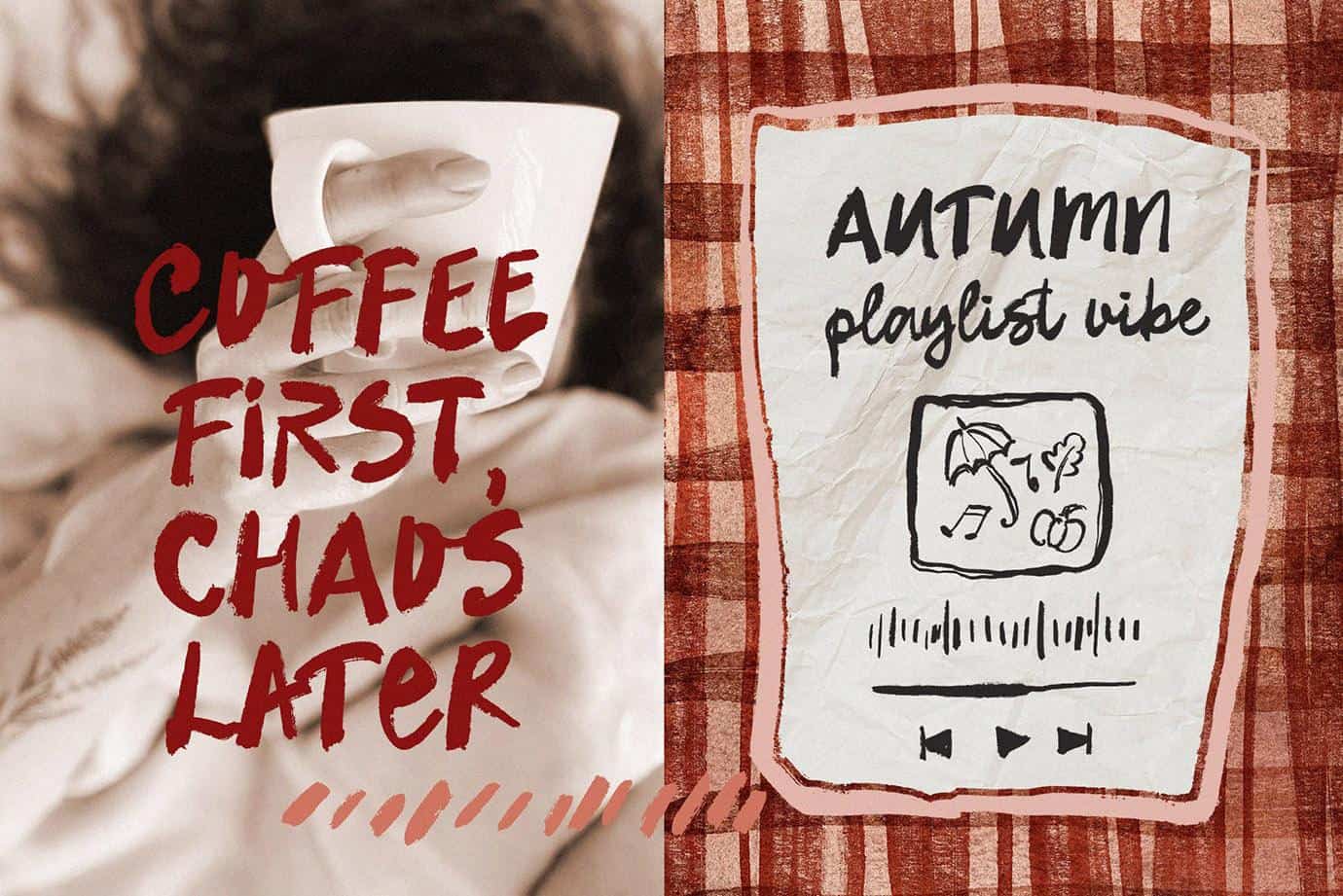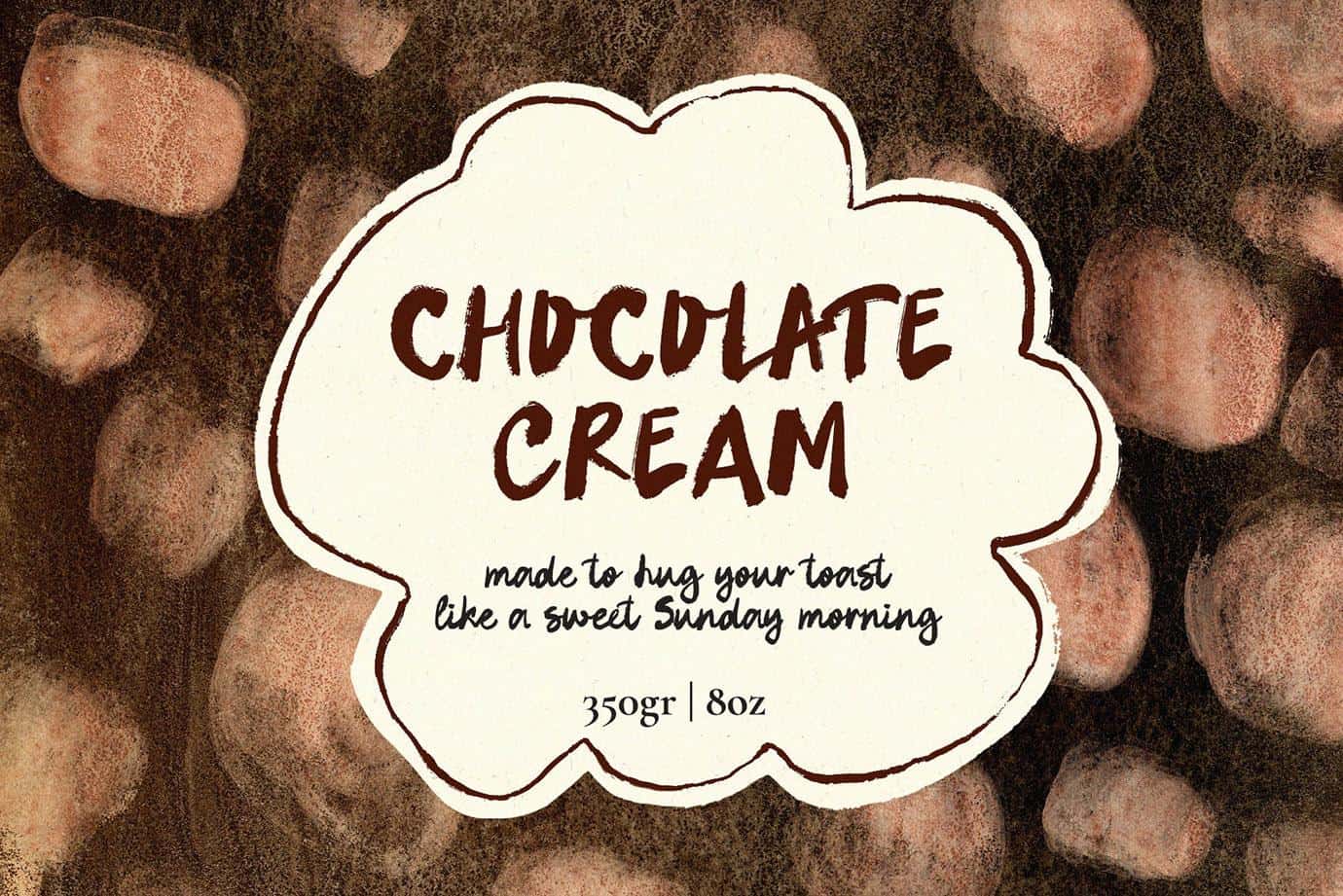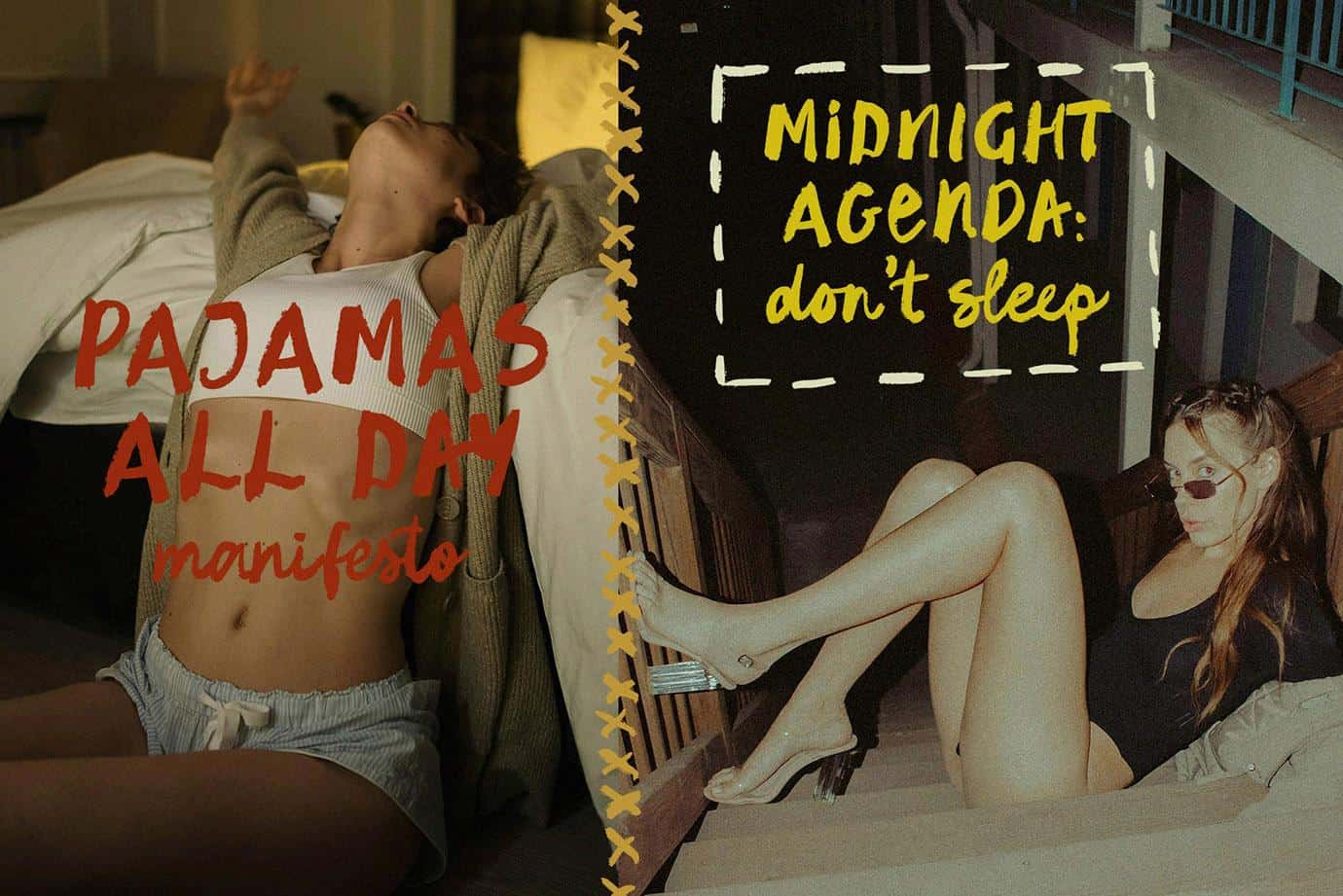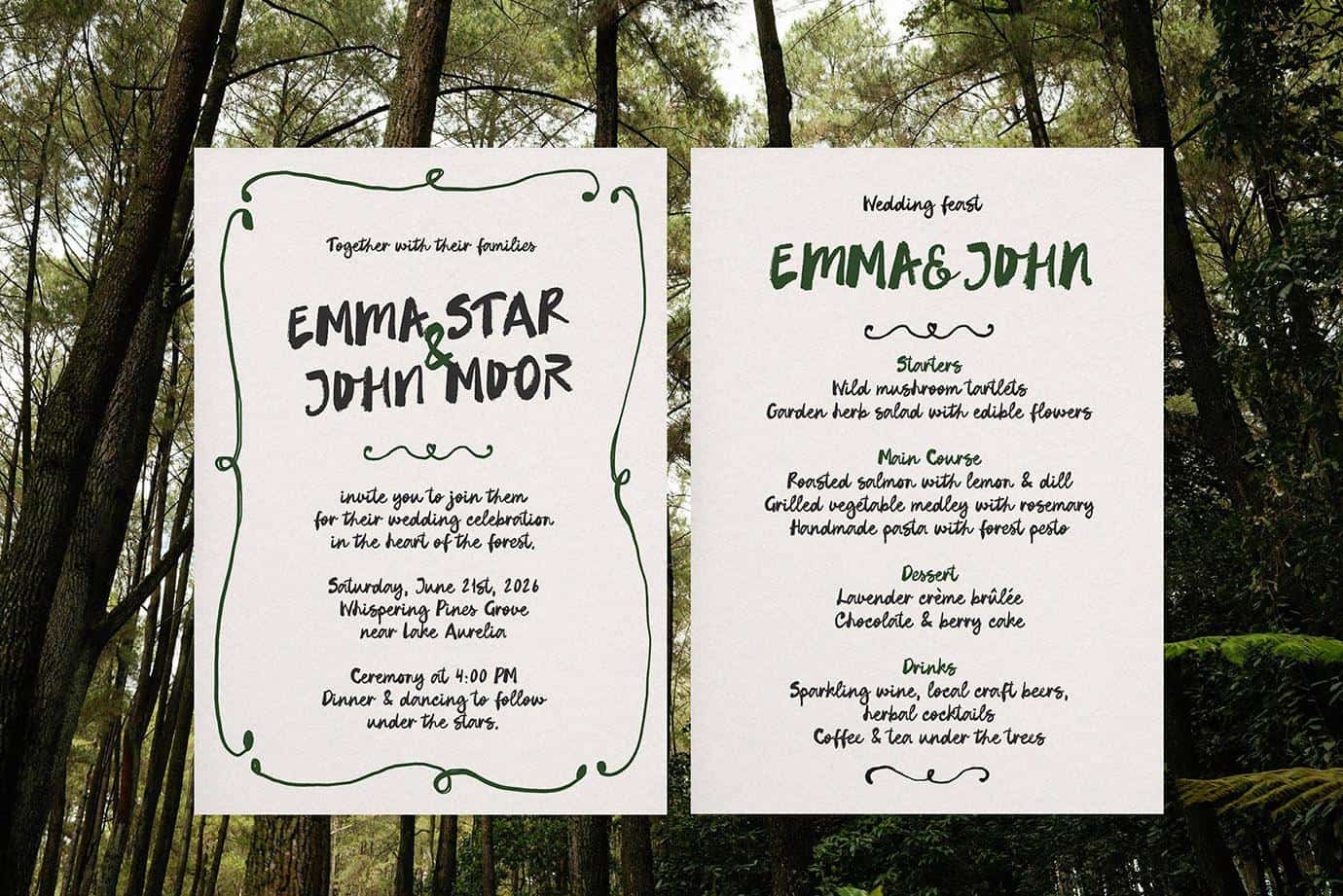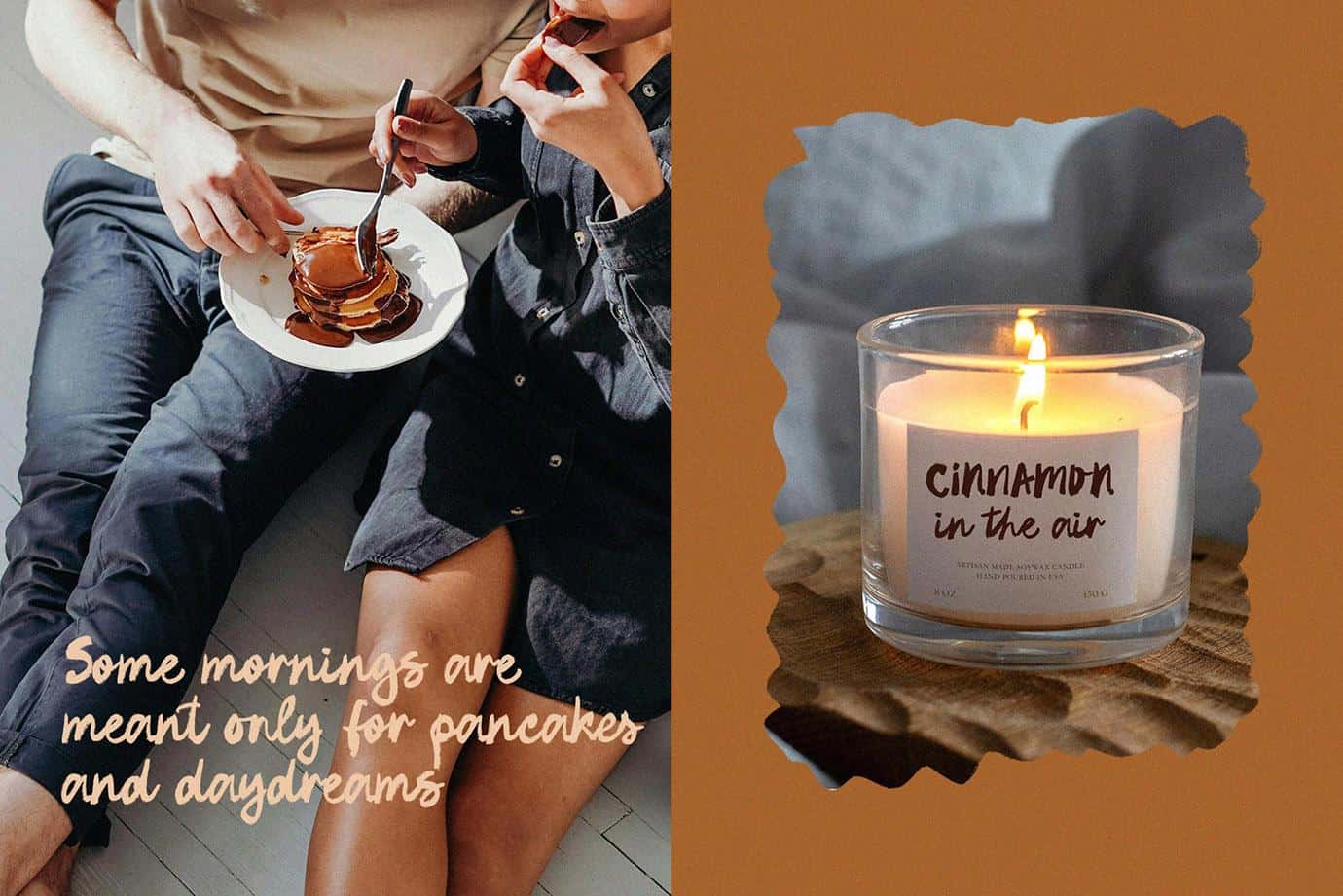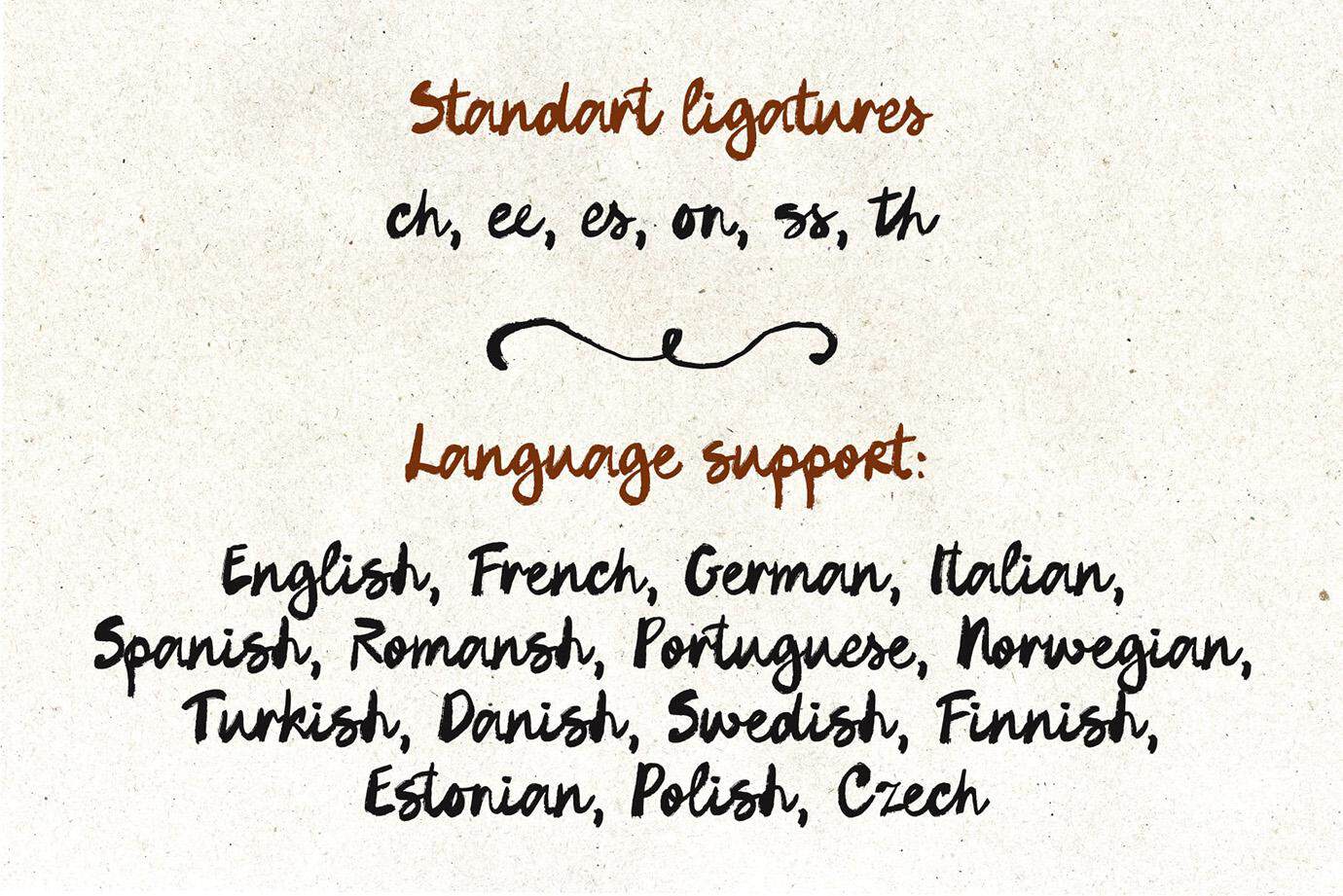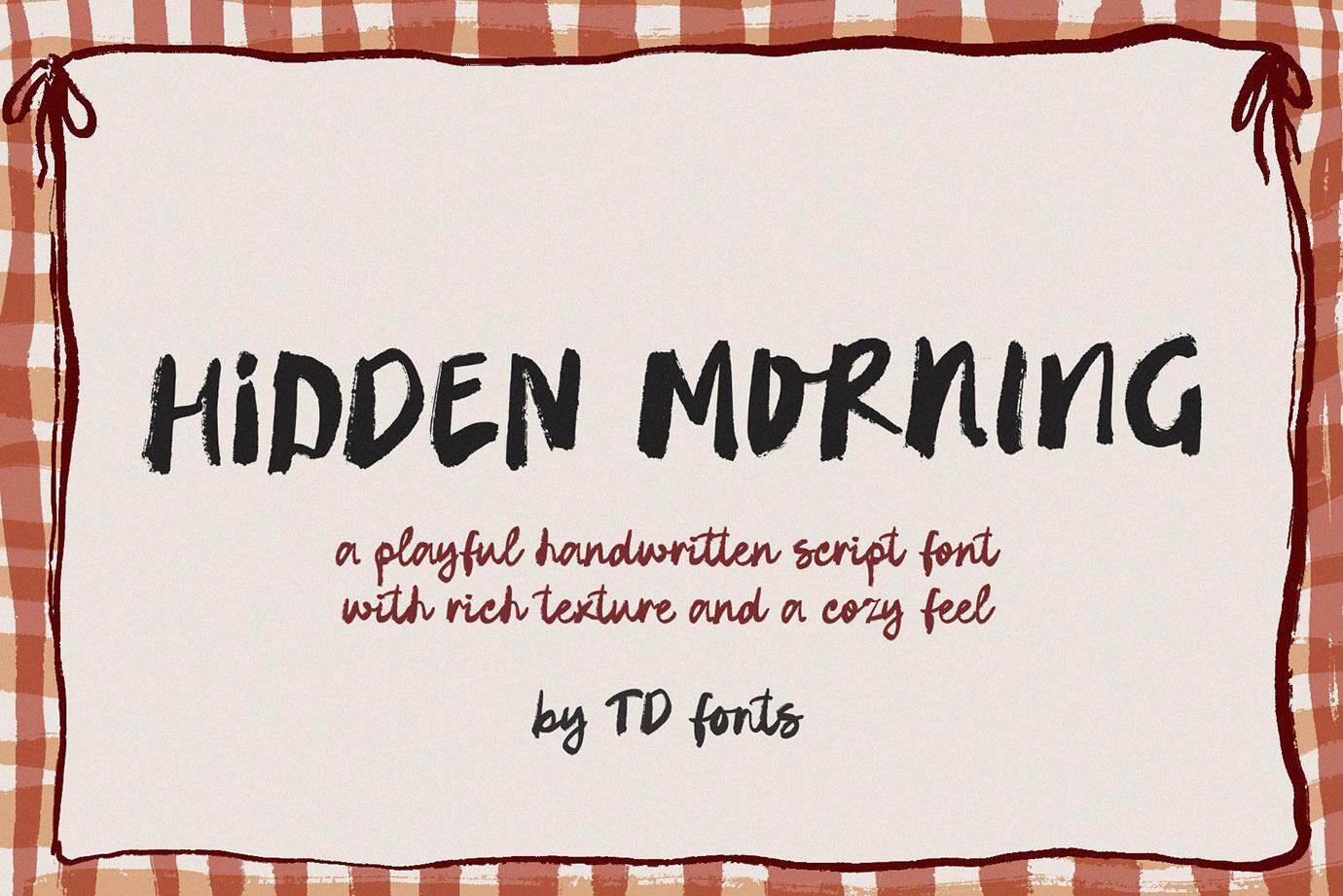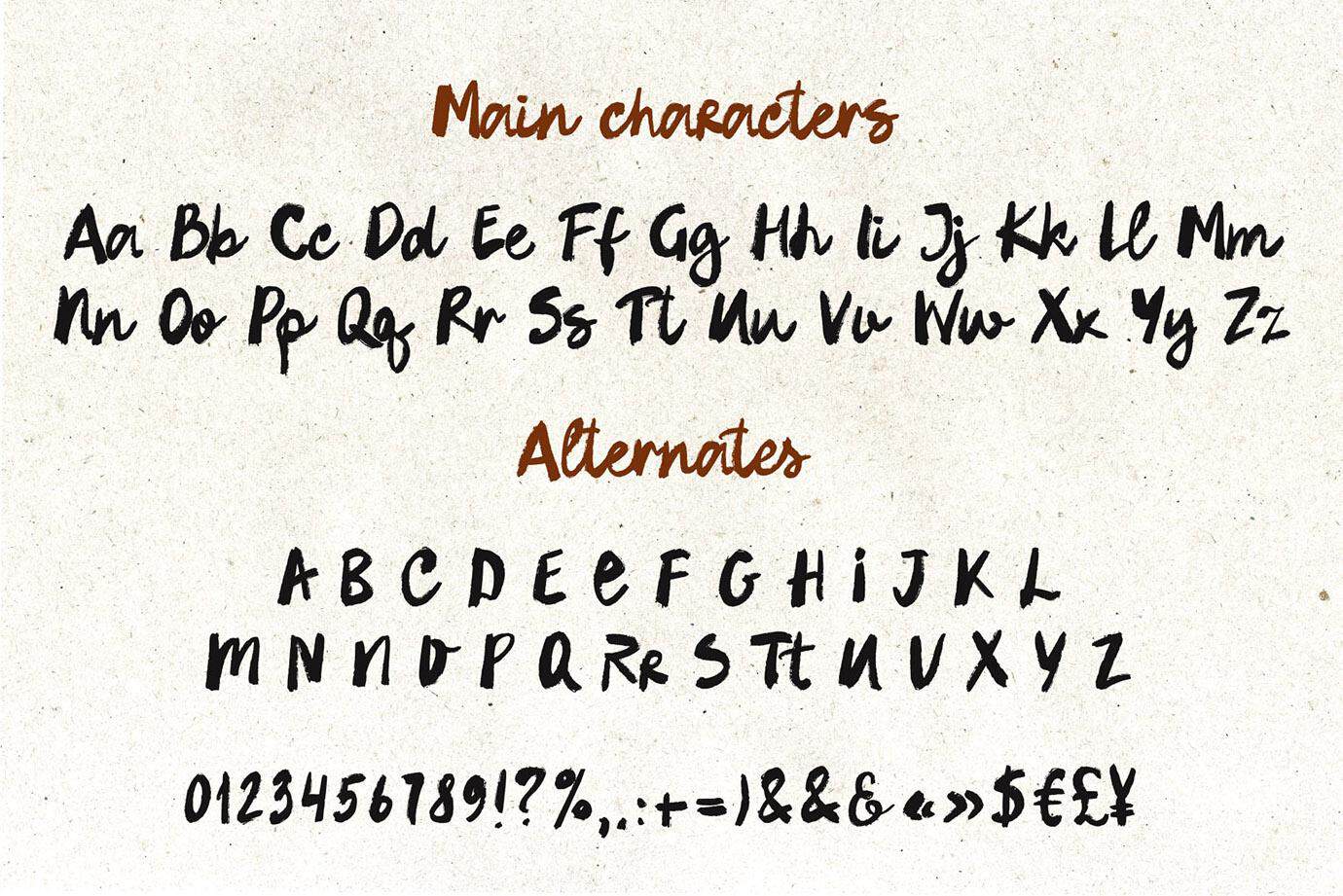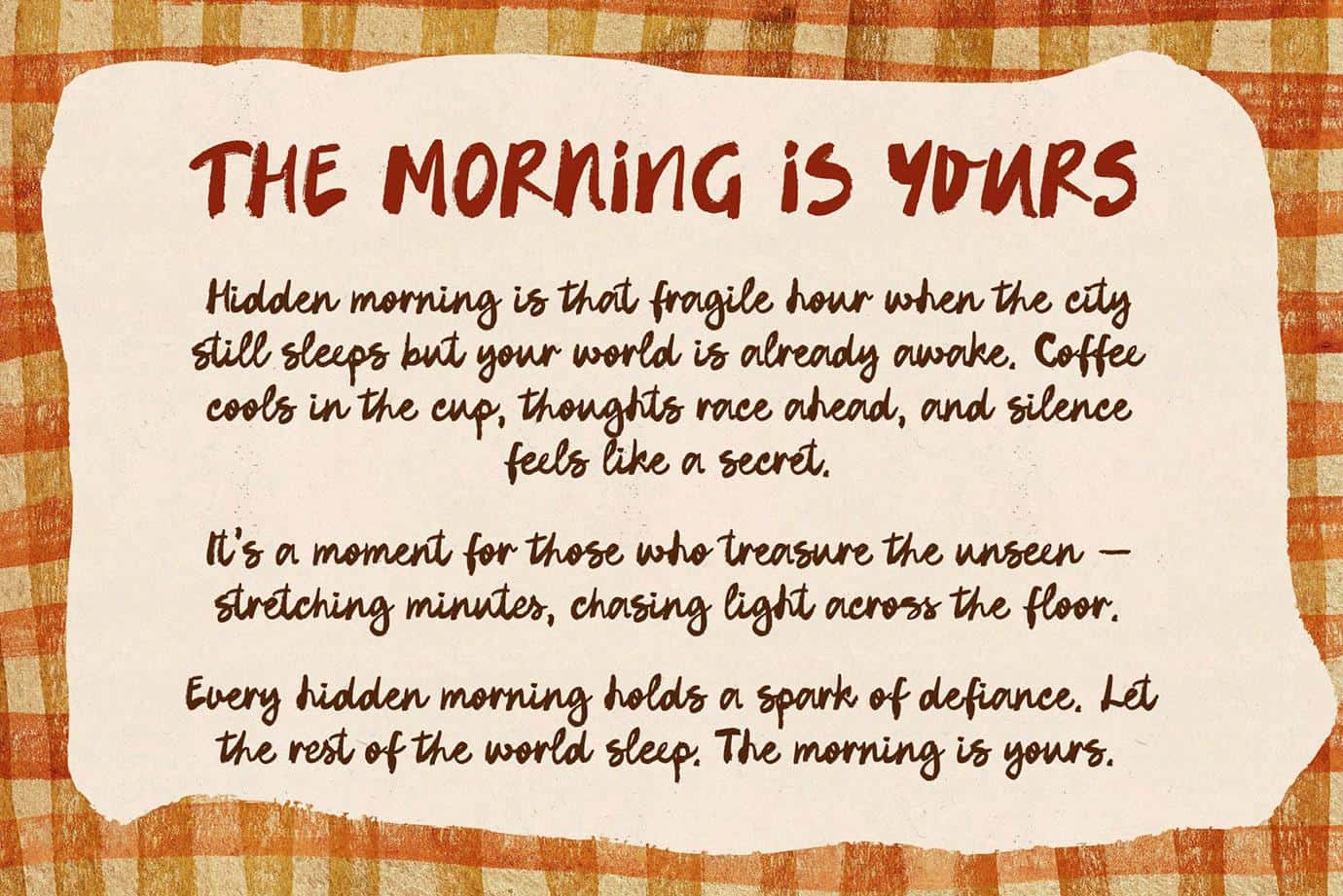
Hidden Morning: bold textured handwritten script font with retro aesthetic
Say hello to Hidden Morning — a textured handwritten font with bold energy and a hint of mystery
Say hello to Hidden Morning — a textured handwritten font with bold energy and a hint of mystery. Its handwriting letters look as if they were painted with half-dry ink, bringing raw texture and authentic character to every design.
Uppercase letters tilt and rush in different directions, fearless and expressive — perfect for eye-catching titles and dramatic headlines. To keep things fresh, a set of alternate uppercase characters lets you add extra personality. The lowercase set introduces a contrasting script vibe: slightly ornate, playful, and enhanced with standard ligatures that create a natural, flowing rhythm.
Together, the two styles strike a unique balance — like two distinct voices blending into one bold, stylish harmony.
Hidden Morning is crafted for versatility and shines across many projects:
– Branding & graphic design, web design
– Packaging & product labels
– Social media & websites
– Posters, prints & editorials
– Wedding invitations & event stationery
With full multilingual support, this font is ready to speak in many languages around the world, it includes English, French, German, Italian, Spanish, Portuguese, Danish, Norwegian, Swedish, Finnish, Estonian, Romansh, Turkish, Polish.
If you want a typeface that feels modern, untamed, and unforgettable, Hidden Morning is ready to make your words stand out.